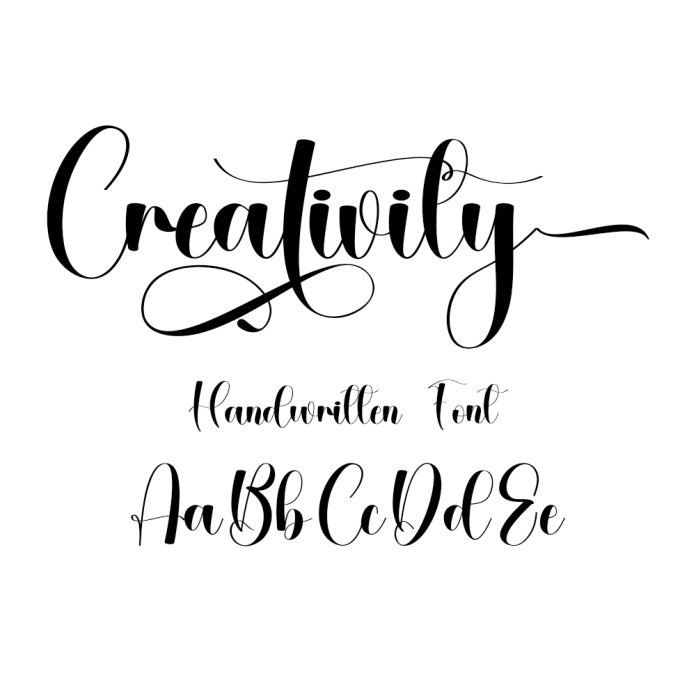
Creativity Font is a sweet and friendly handwritten font. Fresh and casual, this font is ideal for writing wedding invitations, cards, or any other design that might need a lovely touch.